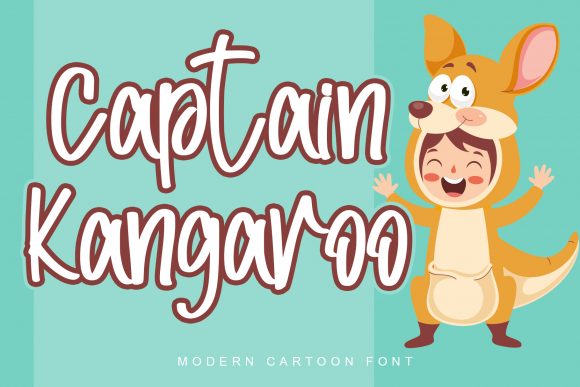
Captain Kangaroo Font for Campaigns with a Friendly Appeal
I was deep into planning the launch graphics for a new kids’ activity kit, staring at a blank canvas. The product photos were vibrant and playful, but the initial mock-up headline felt… corporate. The generic sans serif I’d defaulted to was sterile, instantly distancing the joyful vibe I needed to project. That moment, when a thumbnail preview fails to spark the right feeling before you’ve even written a word, is where a campaign’s visual tone is truly set. It’s why your choice of fonts, especially for key messaging, can make or break that first impression. In my search for a typeface that communicated warmth, fun, and a welcoming personality, I found Captain Kangaroo.
Captain Kangaroo for Cartoon-Related Designs and Children’s Brands
Captain Kangaroo is a cute and sweet handwritten font with an incredibly friendly feel. Its visual style is organic, slightly bouncy, and possesses a genuine, approachable personality. This isn’t a harsh, angular script; it’s the kind of typography that looks like it was drawn with a smile. For marketers targeting families, educators, or any brand in the playful, creative niche, the mood it sets is pure communication appeal. It instantly signals “this is for you” in a way that stiff, traditional typefaces cannot. Using Captain Kangaroo in my campaign headers and key callouts transformed the graphics from simple announcements into visual invitations.
Using Captain Kangaroo for YouTube Thumbnails and Social Media Graphics
Imagine scrolling through a feed. A thumbnail for a parenting tips video pops up, the title rendered in a clean but cold font. It gets skipped. Another appears, with the same core message but set in the warm, handwritten curves of Captain Kangaroo. It feels personal, trustworthy, and stops the scroll. That’s the practical power of this script handwritten font in digital visibility. For my launch, I applied it to YouTube thumbnails, Instagram post titles, and Pinterest pin headlines. The consistency across platforms wasn’t just about branding; it was about maintaining a single, friendly voice. In fast-scrolling environments, Captain Kangaroo offers excellent readability for short, impactful phrases—think “Launch Day!” “Limited Stock,” or “Free Guide Inside.” It creates a clear visual hierarchy, making the primary message the undisputed focal point.
How Captain Kangaroo Makes Brand Names and Book Covers Stand Out
Beyond single campaign graphics, this font excels at elevating core brand elements. The product details mention its suitability for brand names and book covers, and this is a strategic insight for content creators. For a small business selling handmade children’s toys, using Captain Kangaroo for the logo-style text on their website header or packaging design infuses the entire brand identity with its charming character. For an author publishing a children’s story, setting the book title on the cover with Captain Kangaroo communicates the genre and tone before a single page is read. In a campaign workflow, this means you can extend the font from promotional banners to the foundational assets of the brand itself, achieving seamless campaign consistency.
Designing Email Banners and Digital Ads with Captain Kangaroo
Crafting an email announcement for a seasonal sale, the banner space is prime real estate. A common mistake is over-cluttering it with images and text. Here, Captain Kangaroo serves as a decorative title that carries the emotional weight. “Summer Sale Fun!” written in this font against a clean background becomes the entire graphic’s centerpiece. For digital ad sets, especially in spaces like online shop promotions, the font’s friendly feel can soften a direct call-to-action, making “Shop Now” feel more like a cheerful suggestion than a demand. It works exceptionally well for short headlines and display text, especially when paired with a simple, neutral sans serif for the supporting body copy. This pairing—Captain Kangaroo for the headline, a clean sans for details—creates a balanced, modern typography system that is both engaging and legible.
Readability Tips for Captain Kangaroo on Mobile Screens and Dark Backgrounds
Any handwritten font requires thoughtful application to ensure clarity. Captain Kangaroo’s open, well-defined letterforms generally perform well, but for mobile screens and small previews, a few practical checks are essential. First, avoid overly long sentences; this is a font for impact phrases. Second, ensure sufficient contrast. On dark backgrounds, a bright, opaque white or yellow for the Captain Kangaroo text works beautifully. On light backgrounds, a deeper, saturated color prevents it from fading. Third, give it space. Don’t cram it against complex image details; let it breathe on the canvas. When used for image overlays on social media graphics or reel covers, placing it on a slightly muted section of the photo ensures the message pops without sacrificing the friendly aesthetic.
Captain Kangaroo for Quotes and Titles in a Content Series
Planning a weekly content series, like motivational quotes for a young audience or titled tips for new parents, demands a recognizable visual template. Captain Kangaroo becomes the signature element. Using it consistently for the quote text or the series title (e.g., “Friday Fun Fact”) across every post builds immediate recognition. Audience engagement isn’t just about the words; it’s about the familiar, comforting package they arrive in. This premium font lends that packaging a unique, hand-crafted quality that feels exclusive and personal, turning a standard content cadence into a branded experience.
Integrating Captain Kangaroo into Webinar Promotion and Course Launch Materials
Even for more structured offerings like a webinar or online course, a friendly approach can reduce perceived barrier to entry. For a webinar promotion targeting educators, the promotional graphics, landing page headers, and even the slide deck titles can benefit from the approachable tone of Captain Kangaroo. “Join Our Creative Session” feels more inviting when set in this typeface. It subtly assures the potential attendee that the content will be accessible and engaging. For a course launch, using it for the course name on the sales page and key benefit callouts (e.g., “Learn Playfully”) aligns the visual communication with the promised experience.
Before committing any font to a full campaign, a thorough practical check is crucial. For Captain Kangaroo, verify the included styles, weights, and file formats to ensure compatibility with your design software (often .OTF or .TTF). Explore if it offers alternates or ligatures for added creative flexibility. Crucially, confirm its commercial font licensing. If you’re using it in client campaigns, digital ads, merchandise, or branded templates for sale, a license that covers commercial use is mandatory. This due diligence protects your work and allows you to deploy this charming script handwritten asset with confidence.